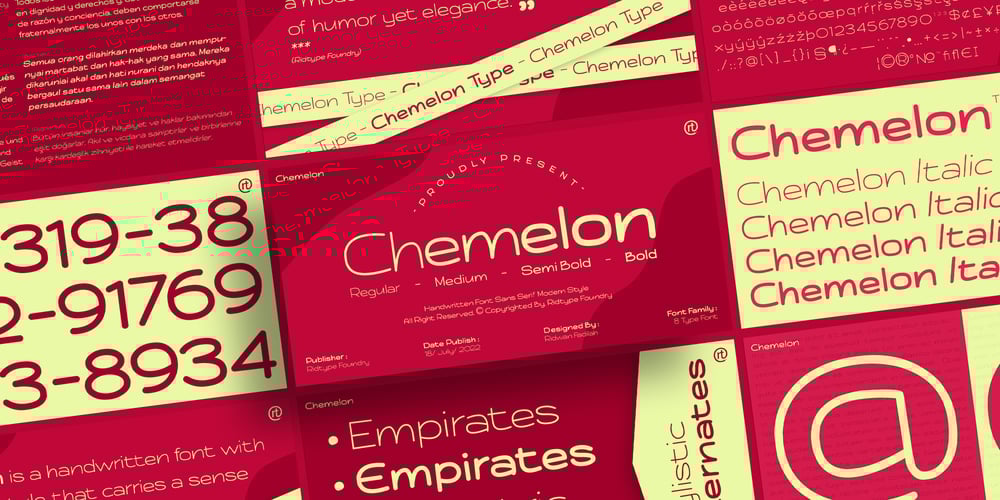
Chemelon Font Family was designed by Ridwan Fadilah and published by Ridtype. Chemelon contains 8 styles and family package options. Chemeleon is a handwritten font with a modern style that carries a sense of humour yet elegance.Version : Vol 1.0Thanks for your support of our product and using it in your project.